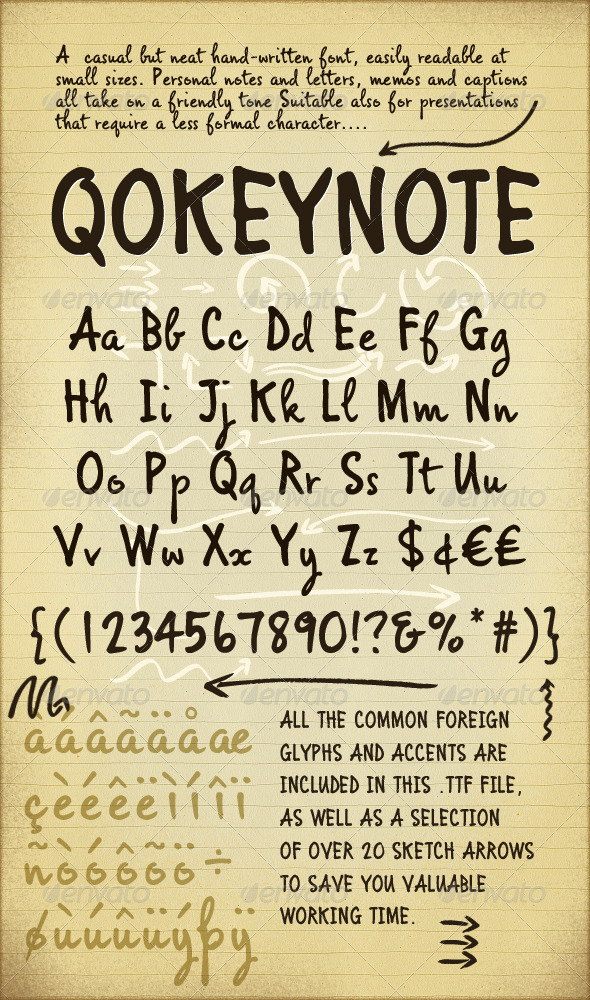
Includes 20 hand drawn arrows! This friendly, casual, easy-to-read, neat and legible handwriting has a sociable and personal style. Great for presentations, flyers, memos, notes and scrapbooking.
There are all the common foreign glyphs, plus the arrows you see in the preview. Simply open your character map, Select, Copy, and paste into your document. Use and edit them all in text mode.